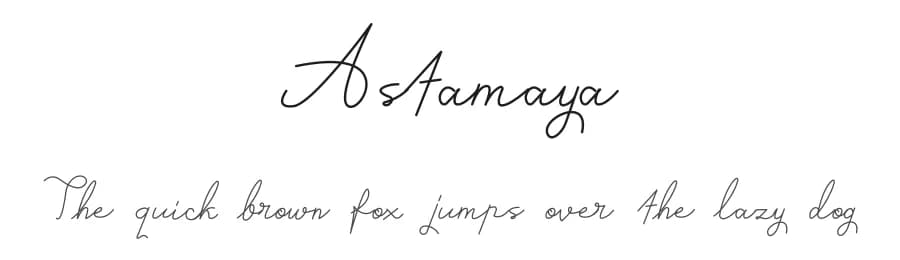
About Astamaya Font
Astamaya Specifications
| Font Family | Astamaya |
| Full Name | Astamaya |
| PostScript Name | AstamayaRegular |
| Designer | DenderType Studio |
Astamaya Font is a script font that shines as a display or heading face. Pair it with a clean sans-serif or serif font for body text β the contrast creates a clear hierarchy while the two styles stay balanced and easy to read.